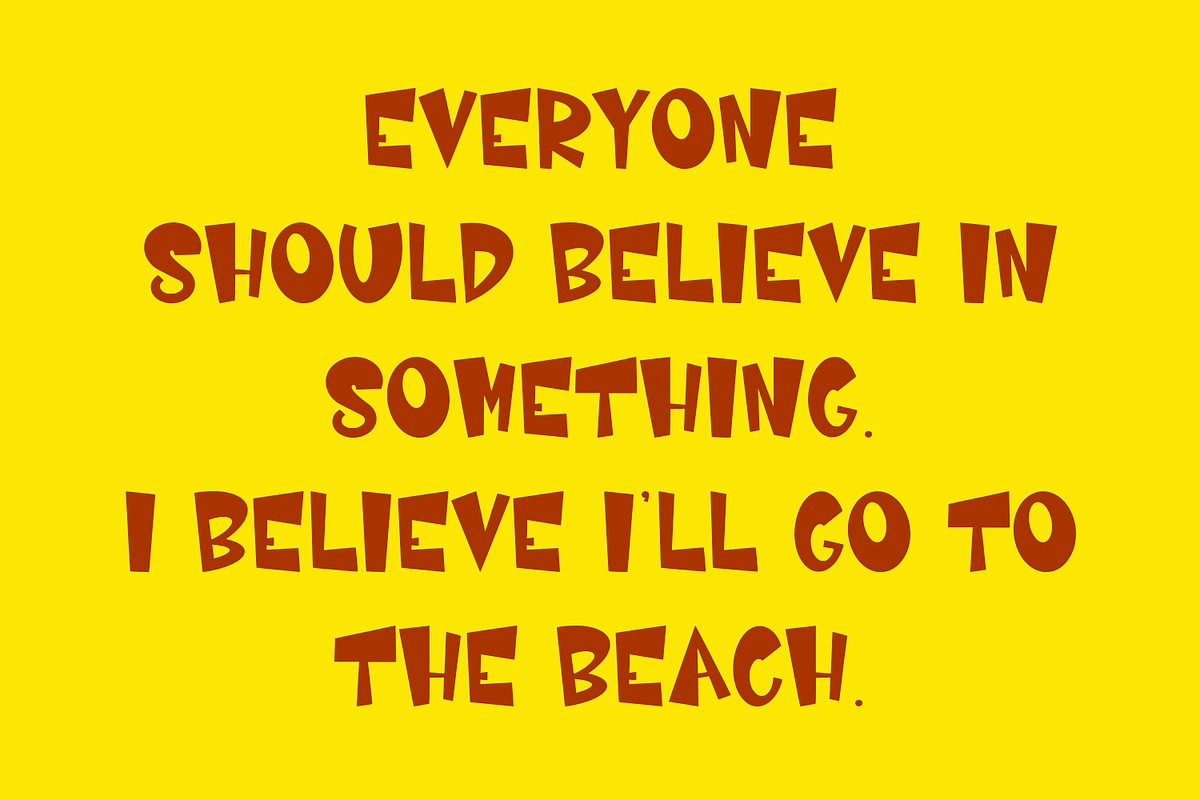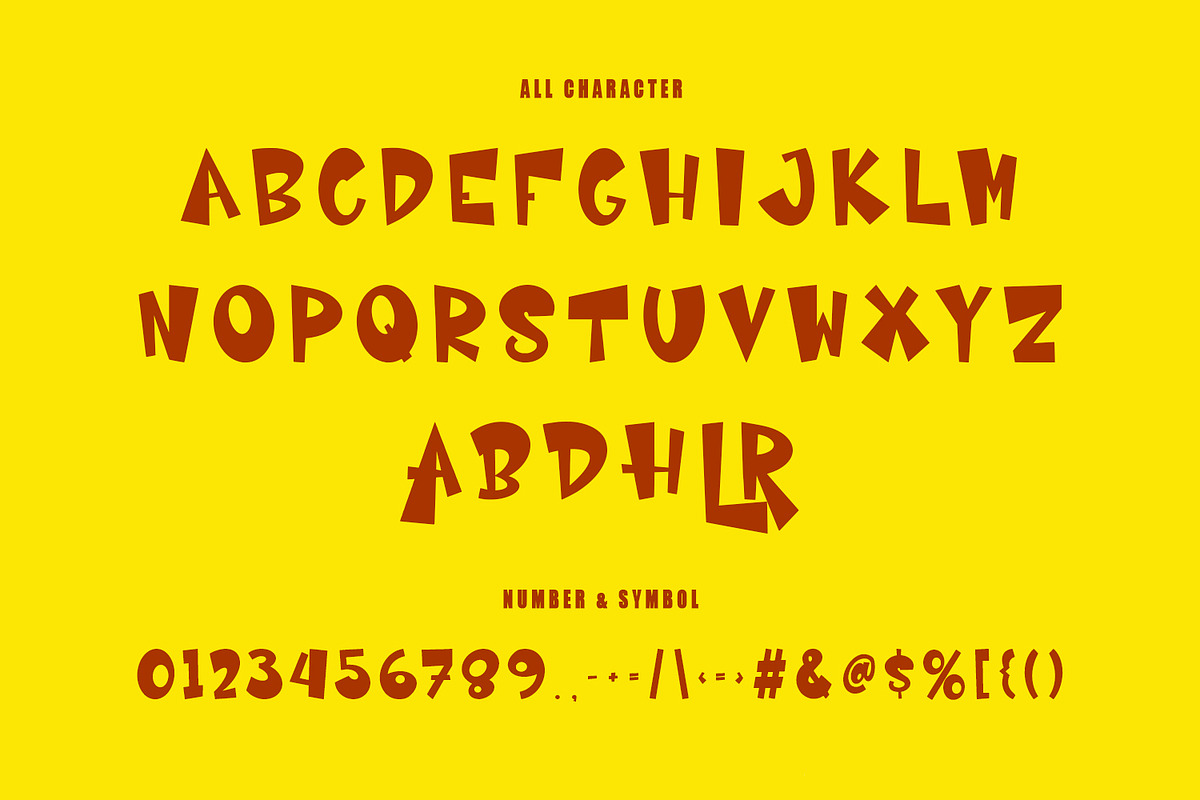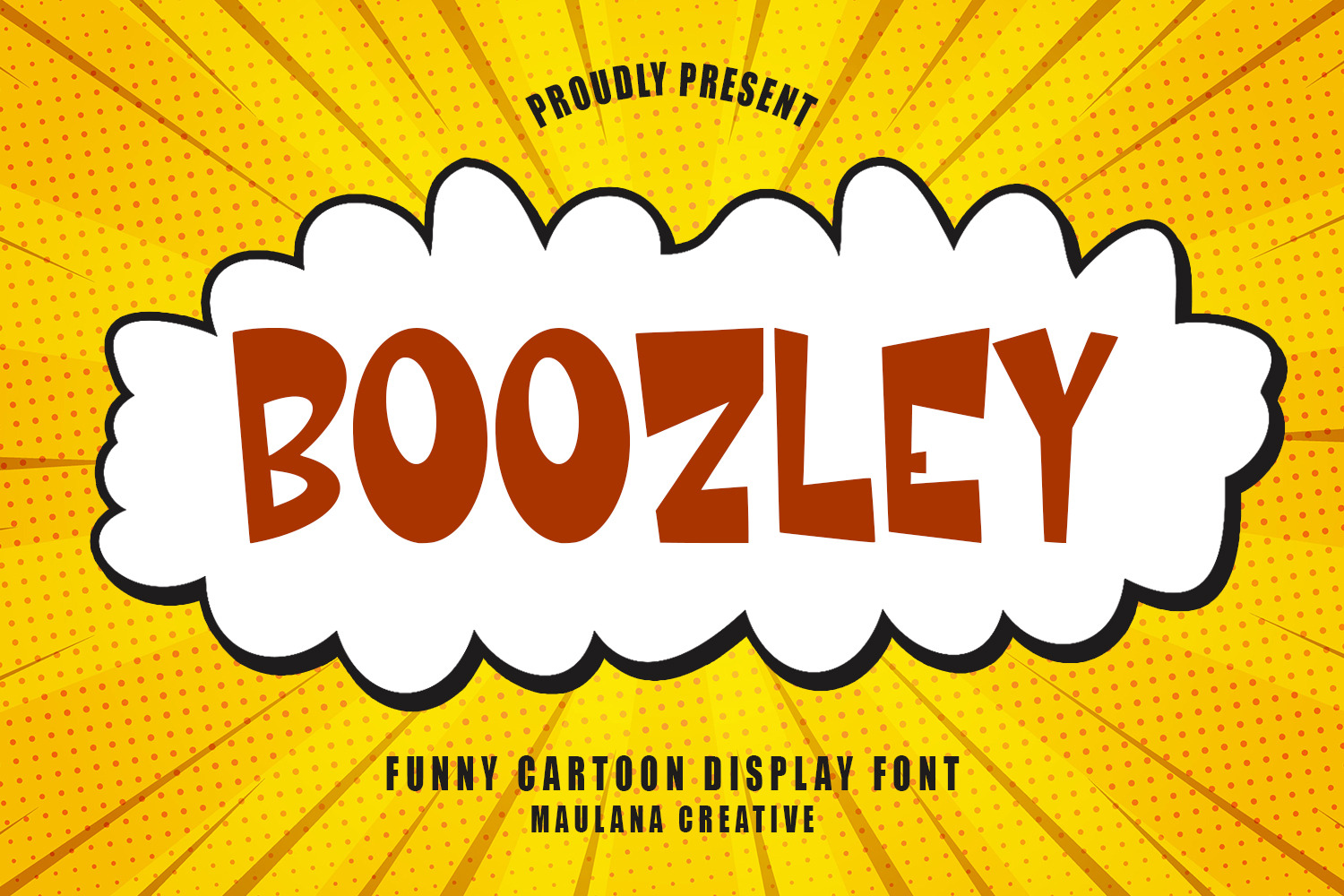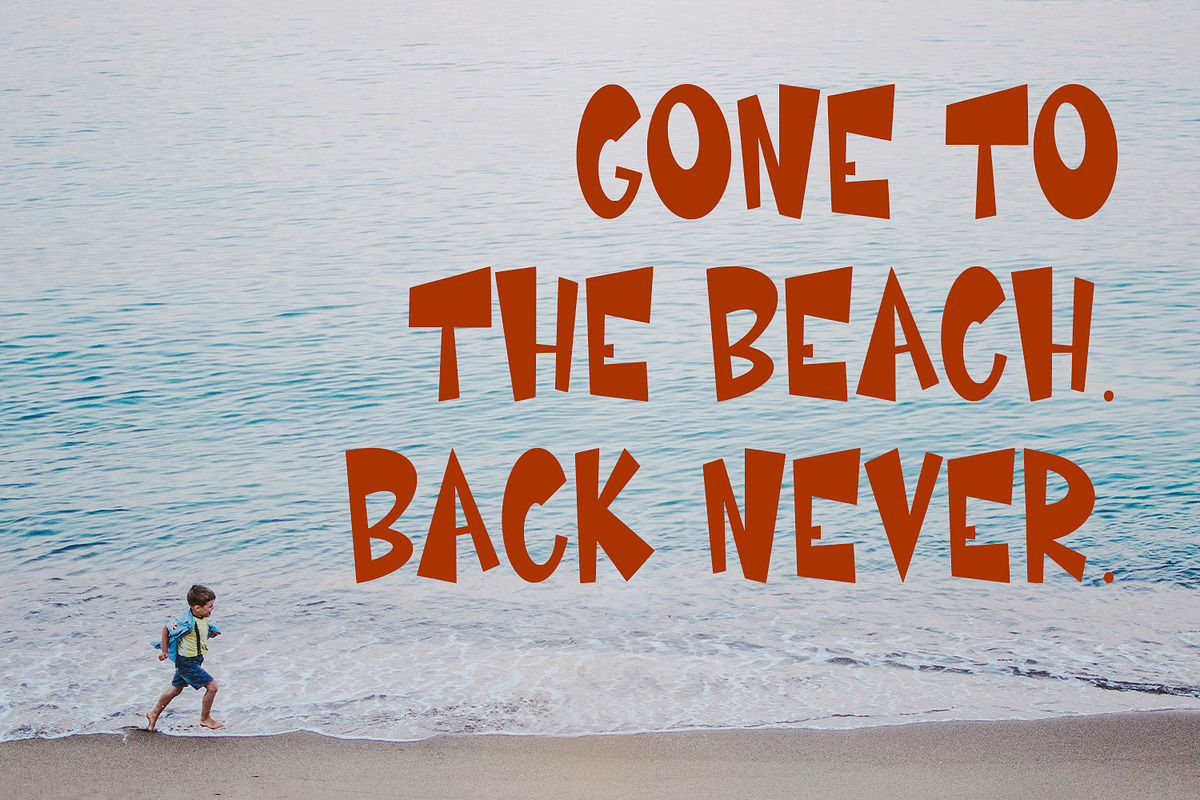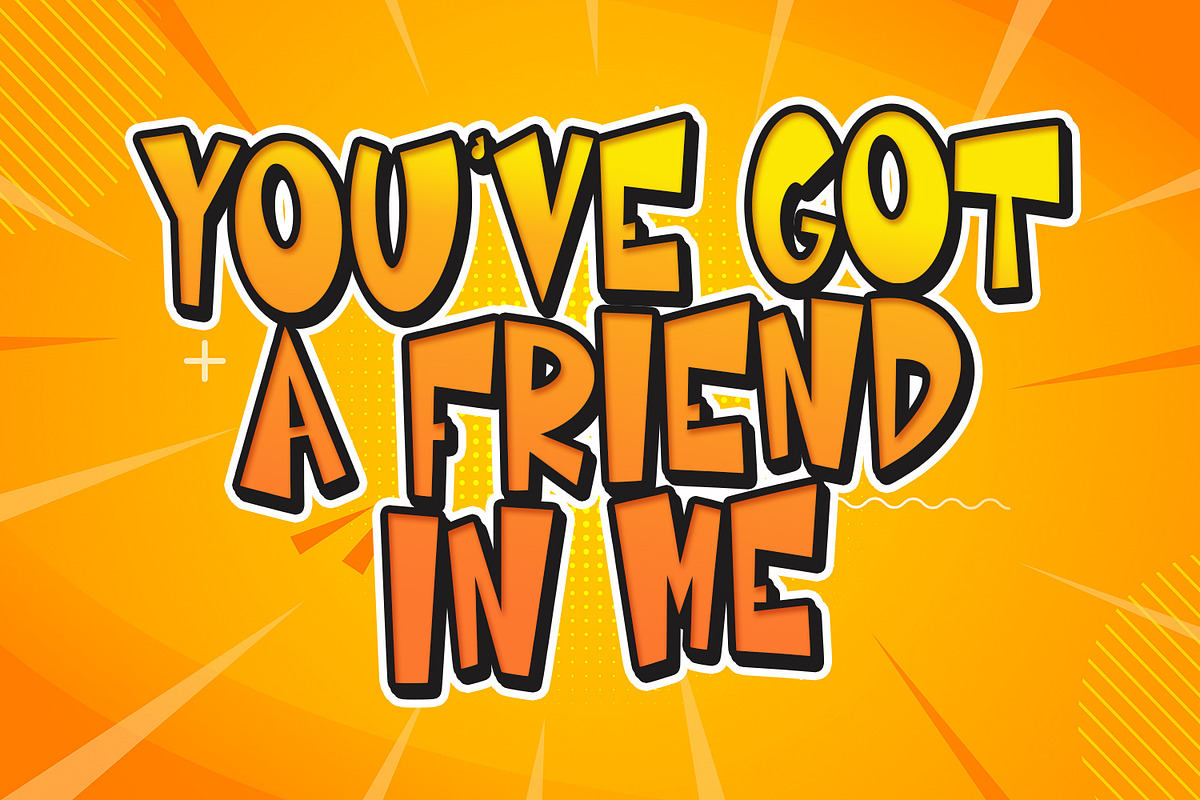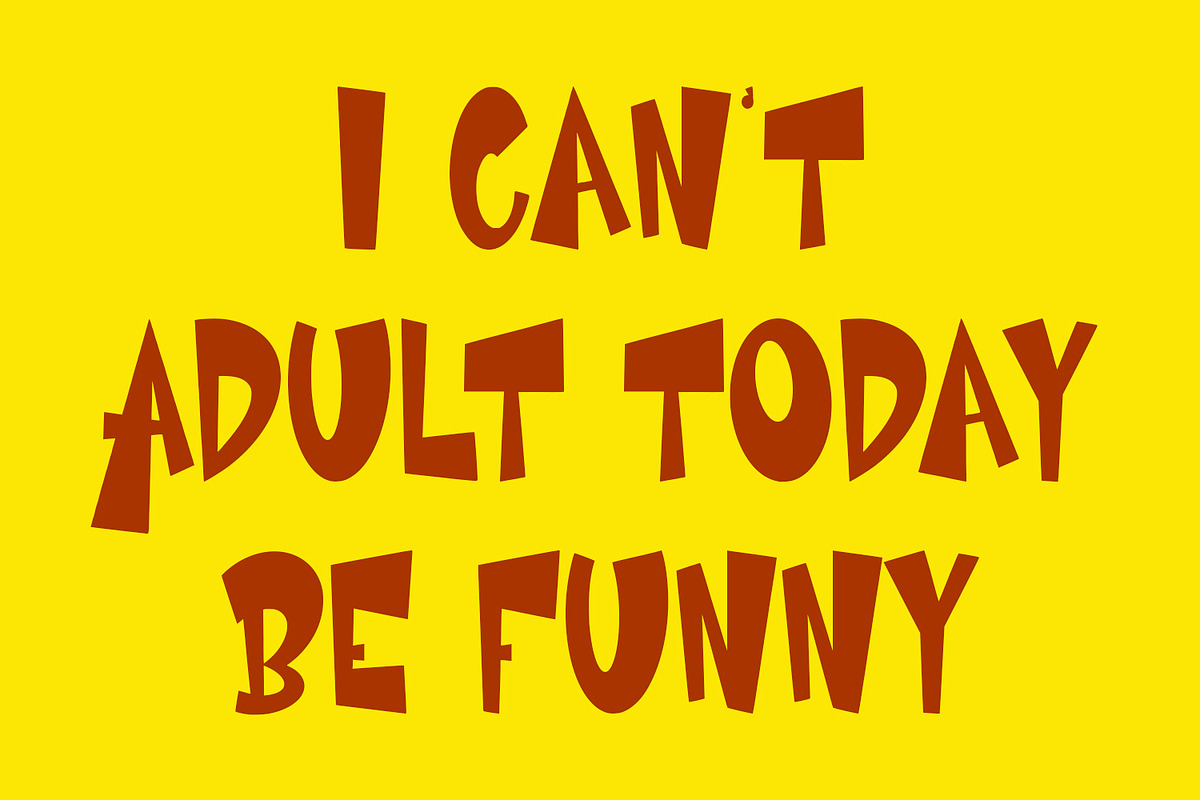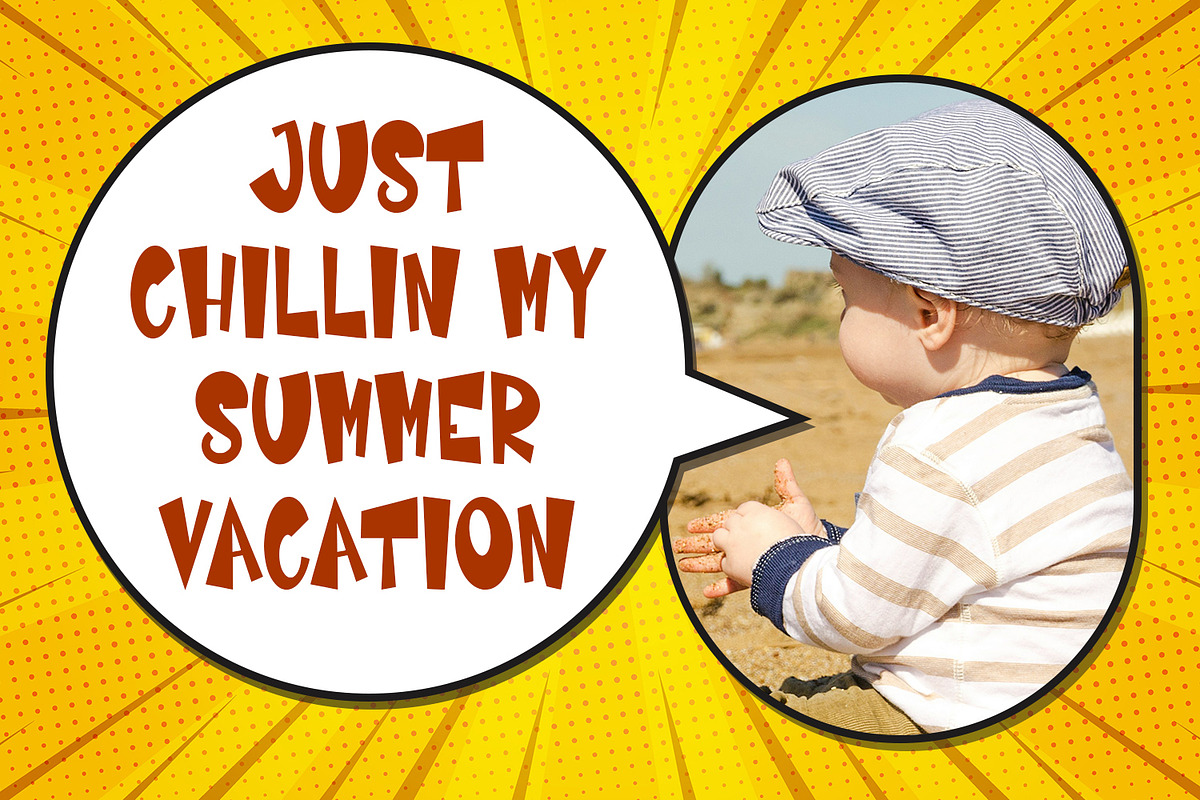
Boozley Cartoon Display Font
Boozley cartoon display typeface. With medium low contrast stroke, fun character with a bit of alternates. To give you an extra creative work. Boozley cartoon display typeface support multilingual more than 100+ language. This font is good for logo design, Social media, Movie Titles, Books Titles, a short text even a long text letter and good for your secondary text font with script or serif. Make a stunning work with Boozley cartoon display typeface.